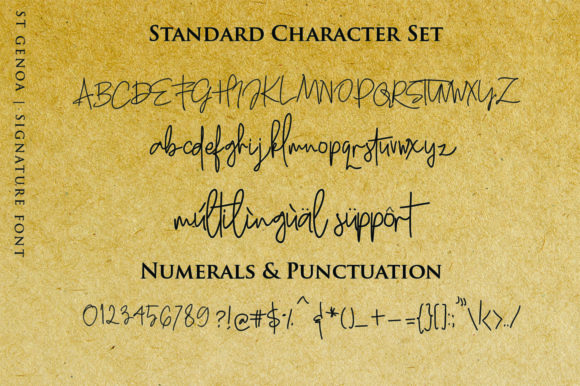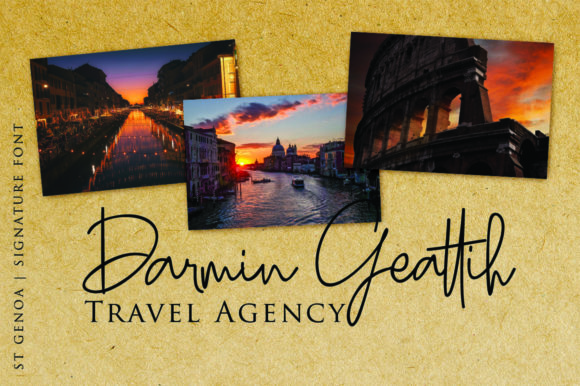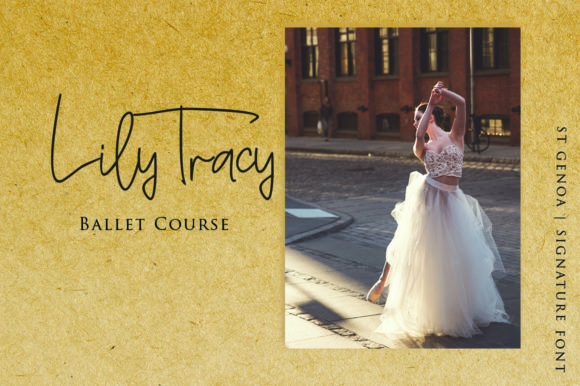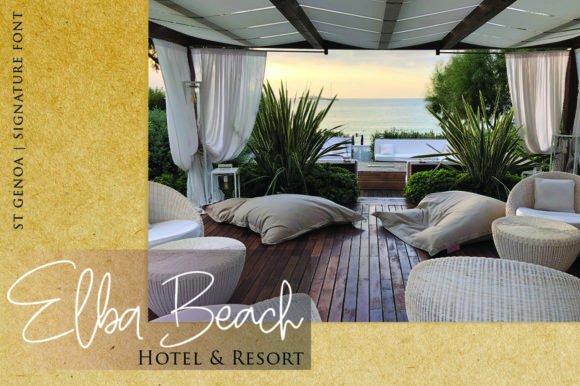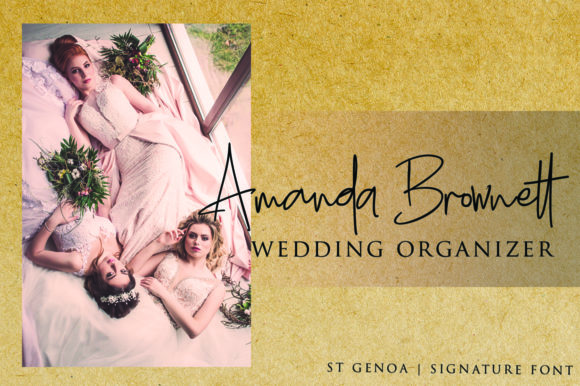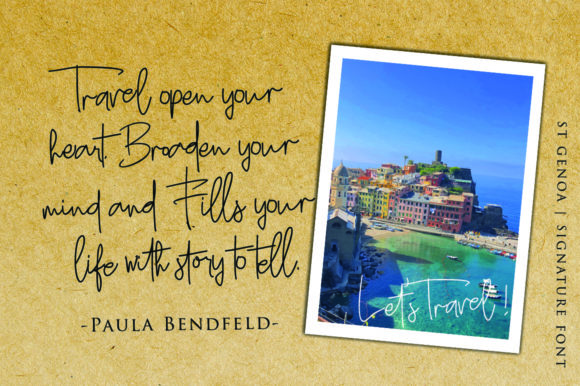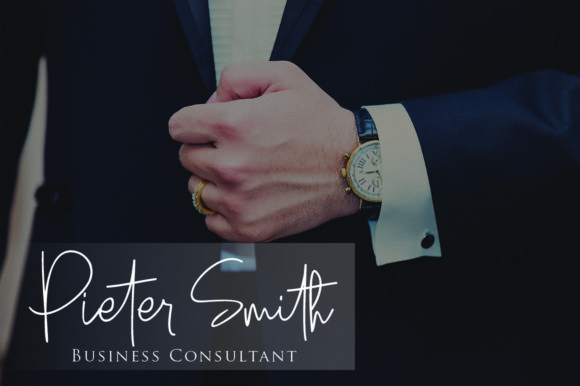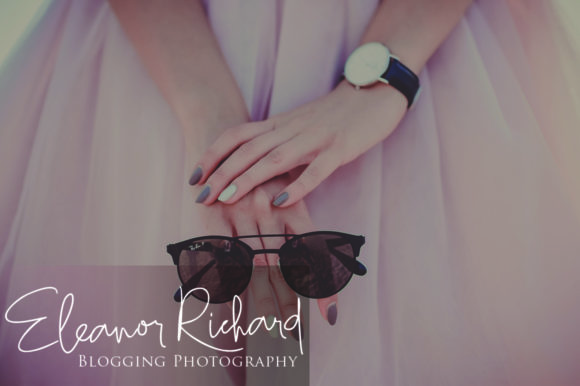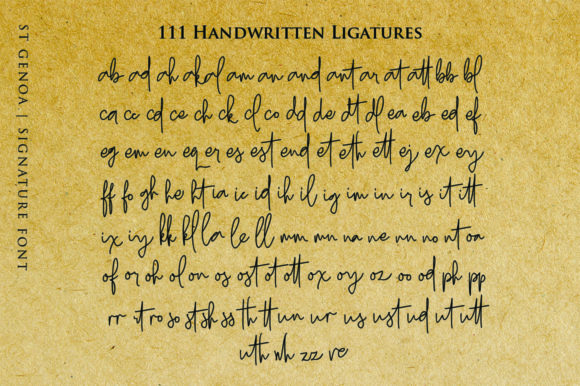
St. Genoa Font
About St. Genoa Font
The St. Genoa is a luxury signature Font. This clean and naturally handwritten font will give an elegant looks to your designs!